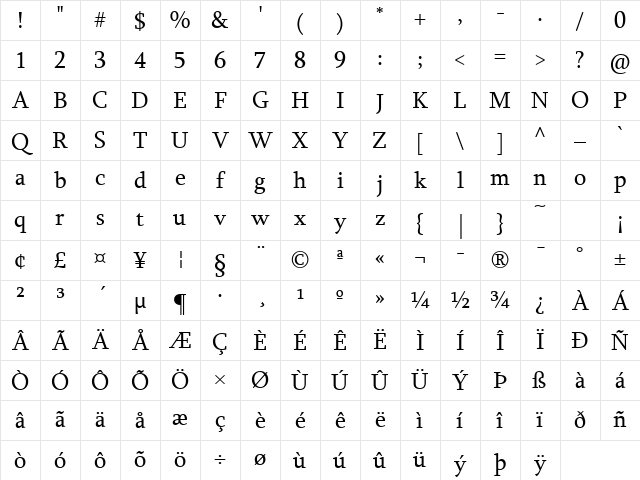
SylfaenARM Regular
Foundry: Tiro Typeworks
Designer: John Hudson/Geraldine Wade
SylfaenARM Family
Design Context for SylfaenARM
SylfaenARM is a composed and adaptable typeface that performs quietly and consistently across a wide range of design contexts.